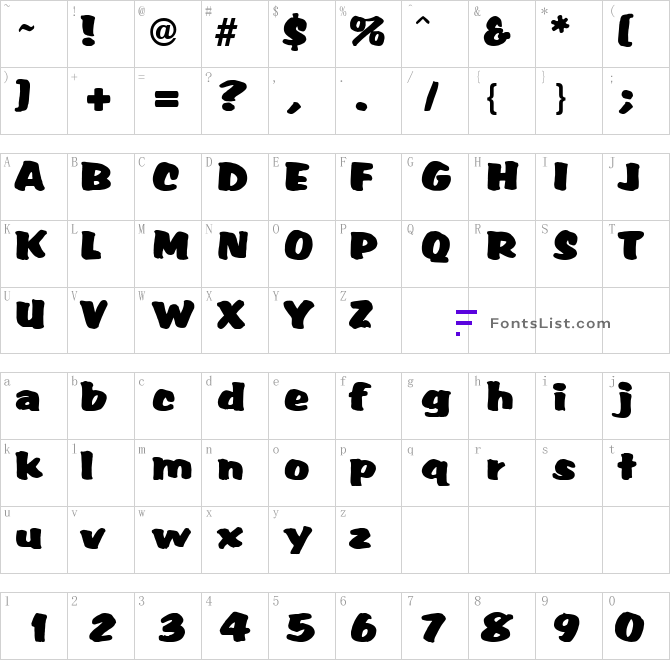
- Font Name:Accent
Accent-Regular.ttf is a very beautiful artistic font, Accent-Regular.ttf is widely used in the design and printing of various books and pictures,Accent-Regular.ttf has a strong visual impact,Accent-Regular.ttf is a commonly used font in newspapers, magazines and books, and is used in posters, e-commerce Poster design, store design, logo design, font design and other fields.Accent-Regular.